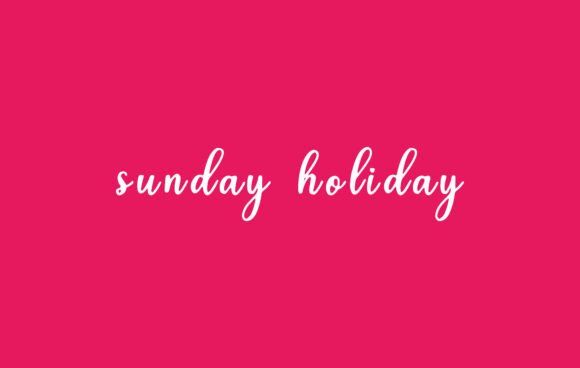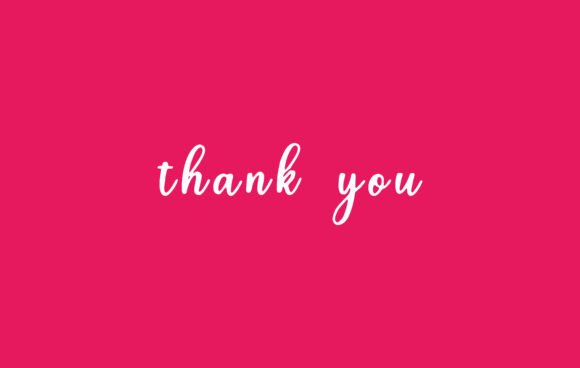
Introducing Builder Font: The Ultimate Handwritten Font for Creative Projects
Are you tired of using the same old fonts for your creative projects? Do you want to add a touch of romance and elegance to your designs? Look no further than Builder Font, an authentic handwritten font that is sure to take your ideas to the next level. In this article, we’ll explore the features and benefits of Builder Font, and show you how it can be used to create stunning designs for a variety of applications.
What is Builder Font?
Builder Font is a carefully crafted handwritten font that exudes a romantic touch. Designed to be a true favorite among designers and crafters, this font is expertly crafted to provide a unique and elegant look that will make your designs stand out. With its legible and versatile design, Builder Font can be used as both a title and body text font, making it perfect for a wide range of creative projects.
Key Features of Builder Font
- Authentic Handwritten Design: Builder Font is designed to look like it was written by hand, giving it a personal and unique touch.
- Romantic Touch: The font’s elegant and cursive design makes it perfect for projects that require a touch of romance and sophistication.
- Legible and Versatile: Builder Font is designed to be easy to read, making it perfect for use as both a title and body text font.
- Wide Range of Applications: Builder Font can be used for a variety of creative projects, including magazine headlines, social media graphics, branding, wedding invitations, cards, and more.
Uses for Builder Font
Builder Font is a versatile font that can be used for a wide range of creative projects. Here are some ideas to get you started:
- Magazine Headlines: Use Builder Font to create eye-catching headlines for your magazine or publication.
- Social Media Graphics: Add a touch of elegance to your social media graphics with Builder Font.
- Branding: Use Builder Font to create a unique and memorable brand identity for your business.
- Wedding Invitations: Make your wedding invitations truly special with Builder Font.
- Cards and Stationery: Use Builder Font to create beautiful and elegant cards and stationery.
Benefits of Using Builder Font
There are many benefits to using Builder Font for your creative projects. Here are a few:
- Unique and Elegant Design: Builder Font provides a unique and elegant design that will make your projects stand out.
- Easy to Read: Builder Font is designed to be easy to read, making it perfect for use as both a title and body text font.
- Versatile: Builder Font can be used for a wide range of creative projects, making it a great addition to any designer’s toolkit.
- Time-Saving: With Builder Font, you can create professional-looking designs in no time, saving you time and effort.
In conclusion, Builder Font is an authentic handwritten font with a romantic touch that is perfect for a wide range of creative projects. With its unique and elegant design, legibility, and versatility, Builder Font is sure to become a favorite among designers and crafters. Whether you’re creating magazine headlines, social media graphics, branding, wedding invitations, or cards, Builder Font is the perfect choice. So why wait? Download Builder Font today and take your creative projects to the next level!